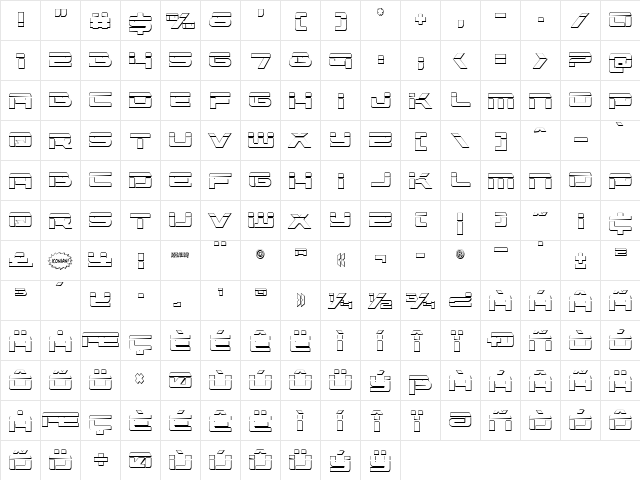
Vorpal 3D Regular
Design Context for Vorpal 3D Typeface
Vorpal 3D is a composed and adaptable typeface that performs quietly and consistently across a wide range of design contexts.
Pro Tip: Use Vorpal 3D in both headline and body roles to test its range before committing to a single application.